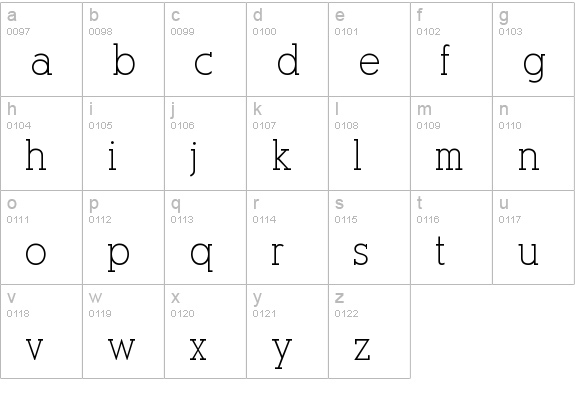
Pogo SSi Font Details
Pogo SSi font is a charming and whimsical typeface that adds a touch of playfulness to any design project. With its unique and creative letterforms, this font is perfect for capturing attention and conveying a fun and lively atmosphere. The curvy and bouncy shapes of Pogo SSi make it ideal for a variety of applications, from branding to advertising to greeting cards. What's even better is that Pogo SSi font is available for free download at FontsMarket.com. This means you can easily access this delightful typeface and use it in your projects without any cost. So why wait? Add a touch of joy and creativity to your designs with Pogo SSi font today!